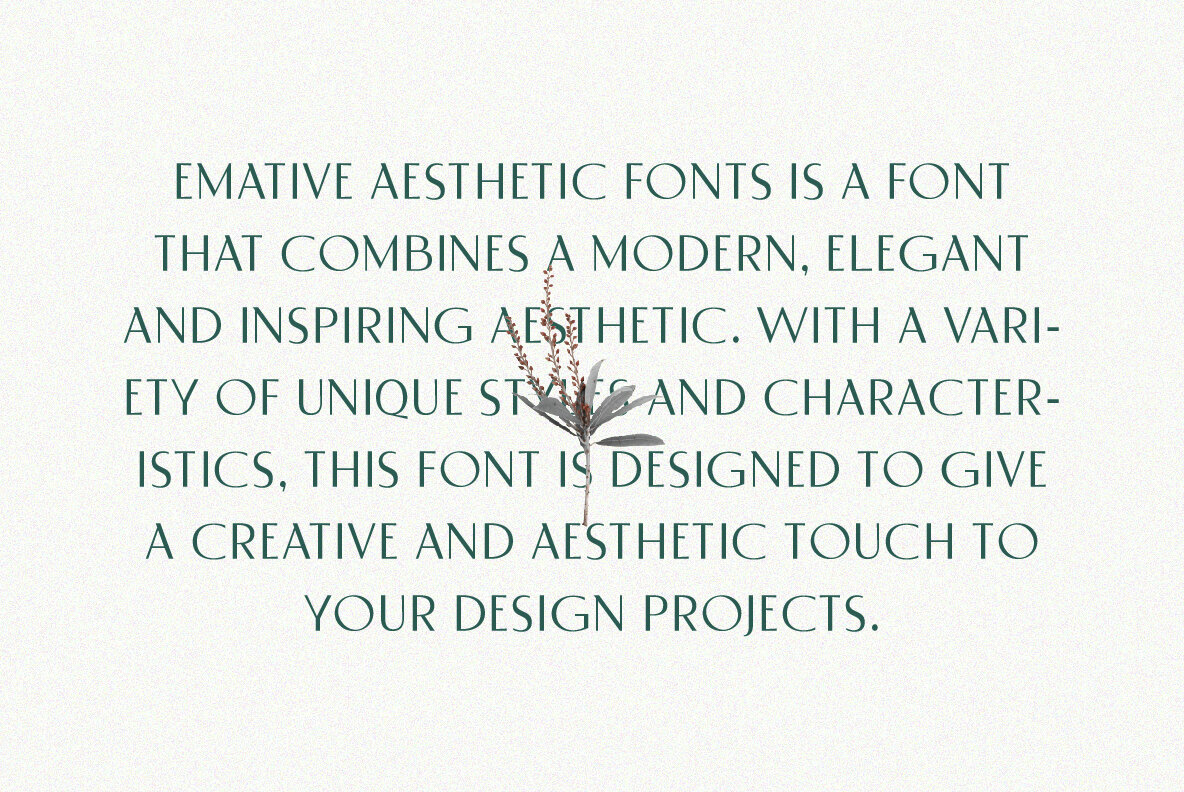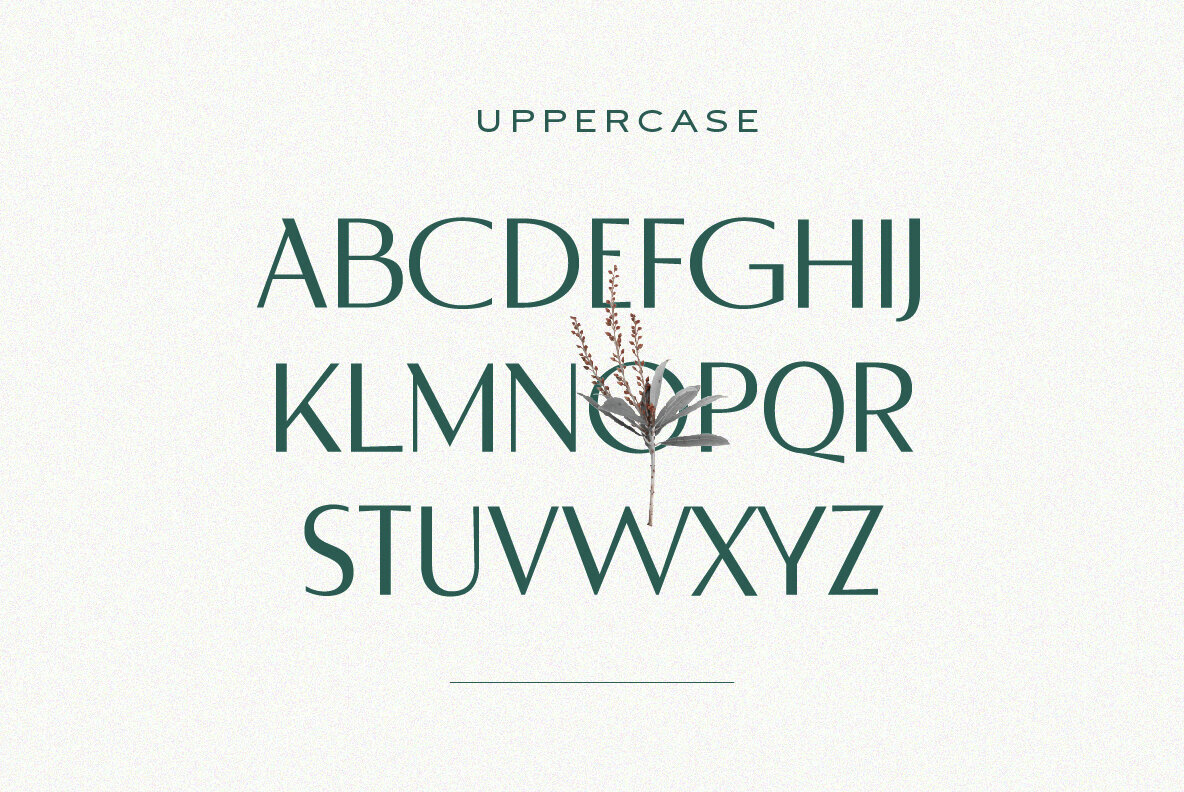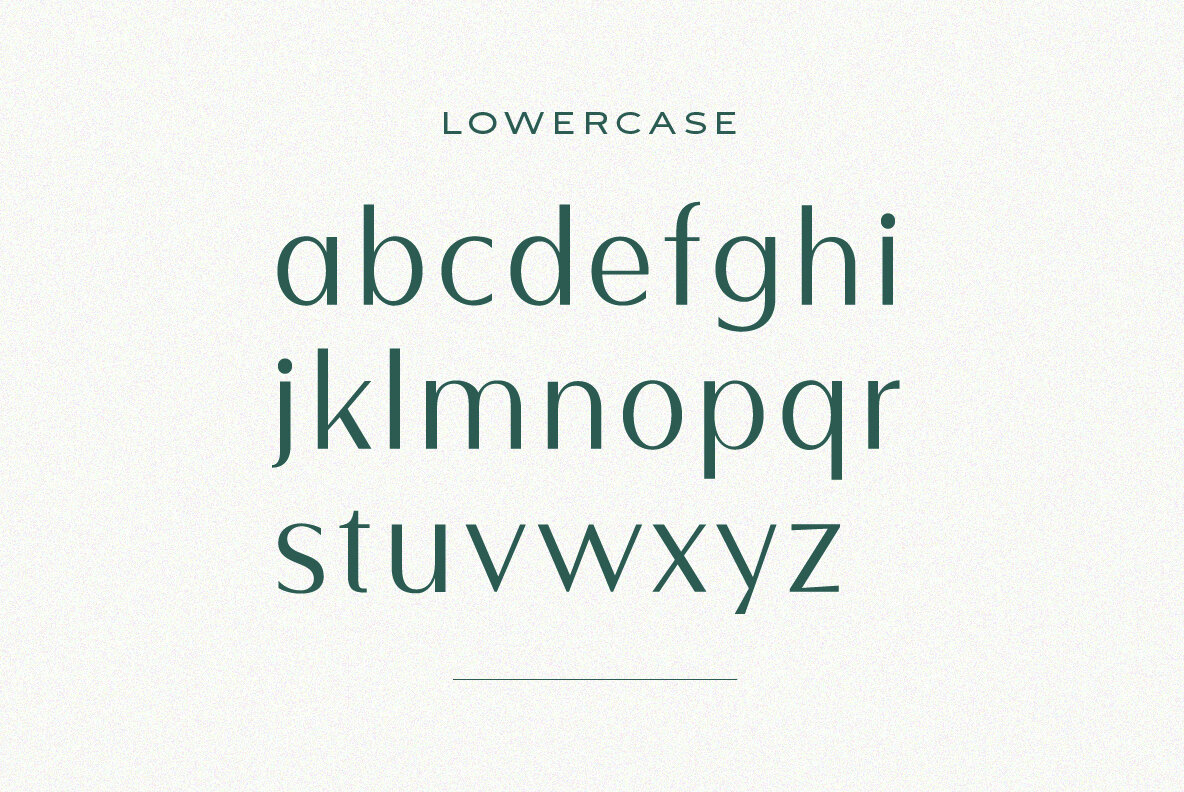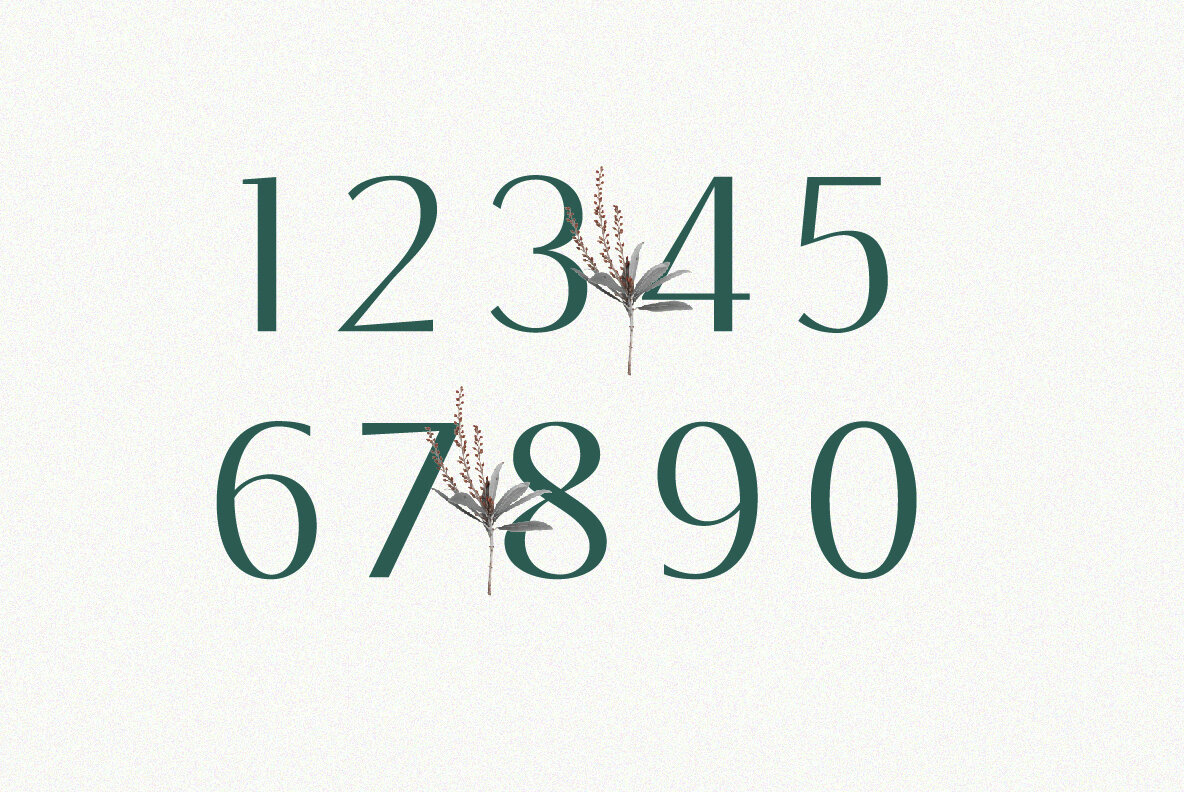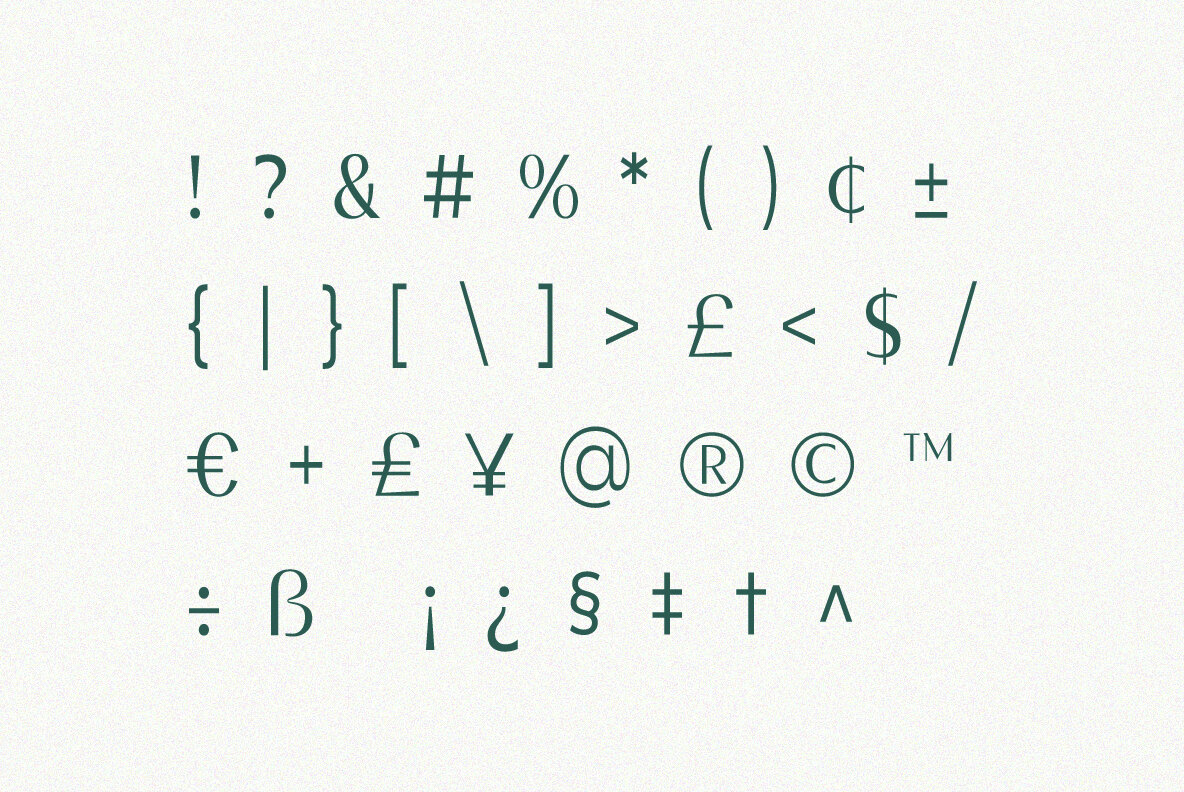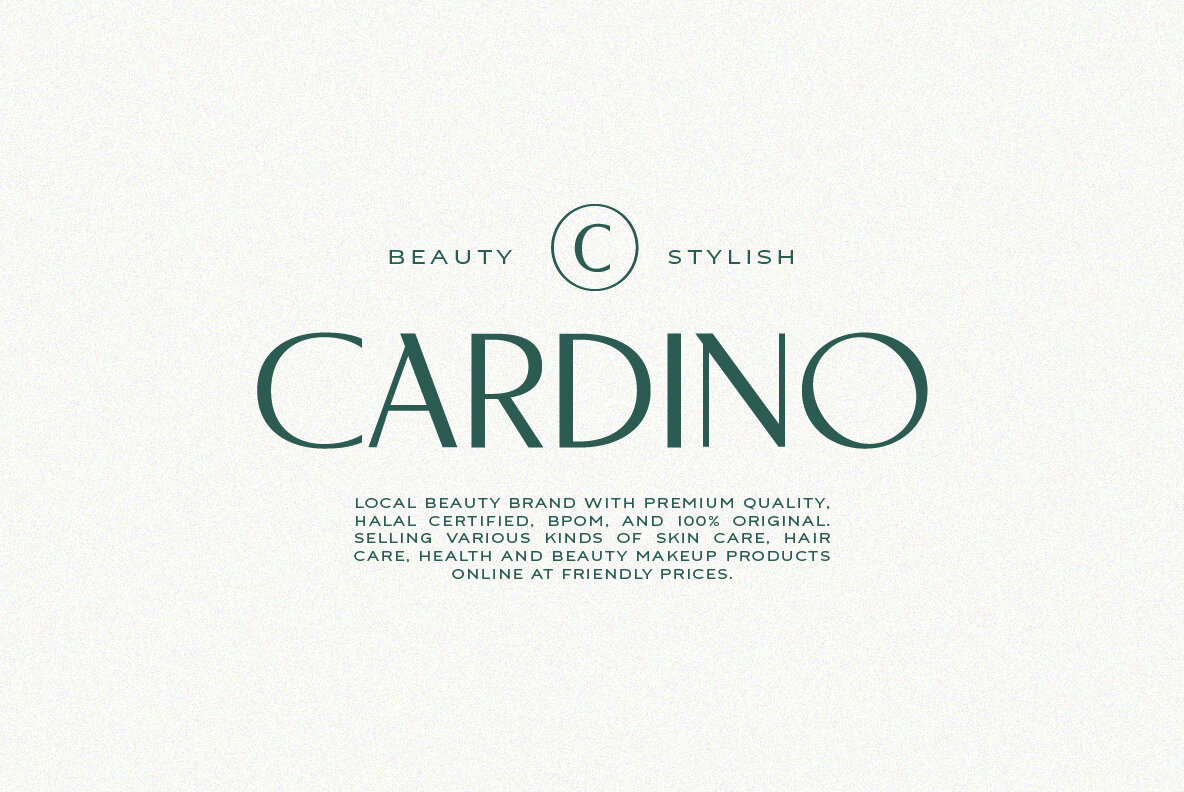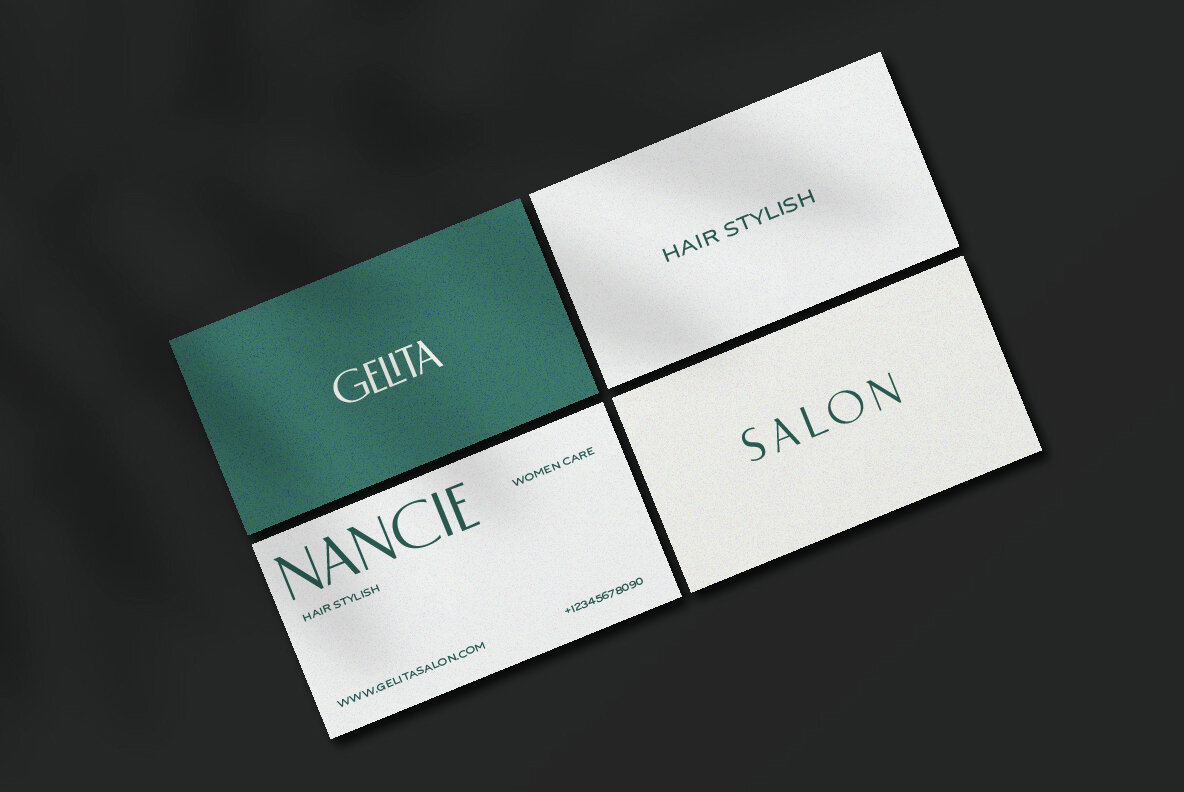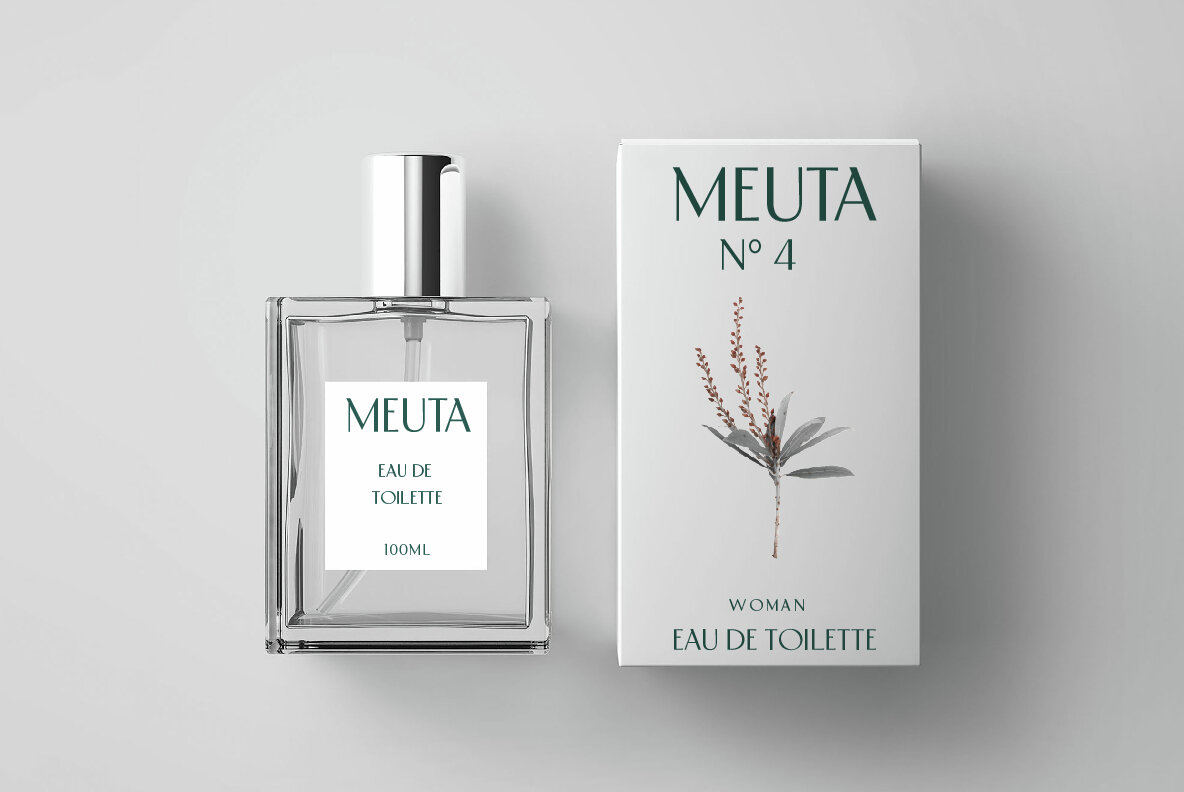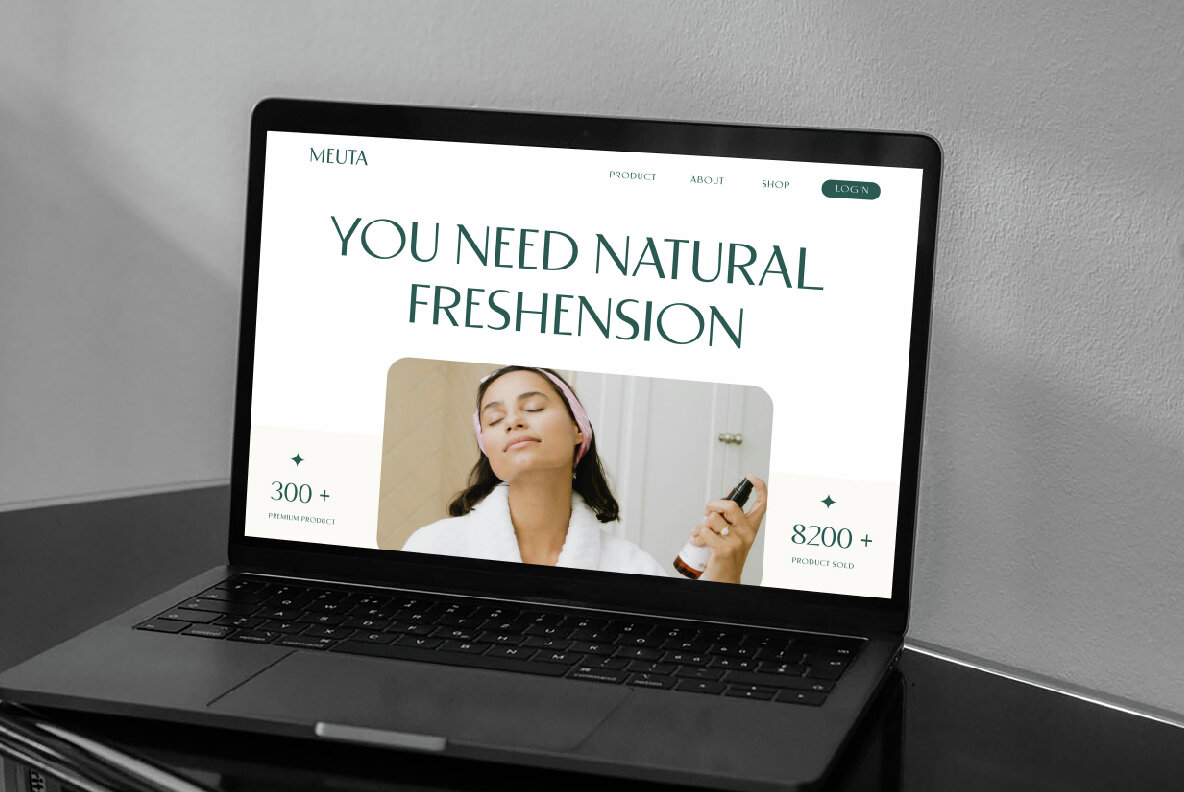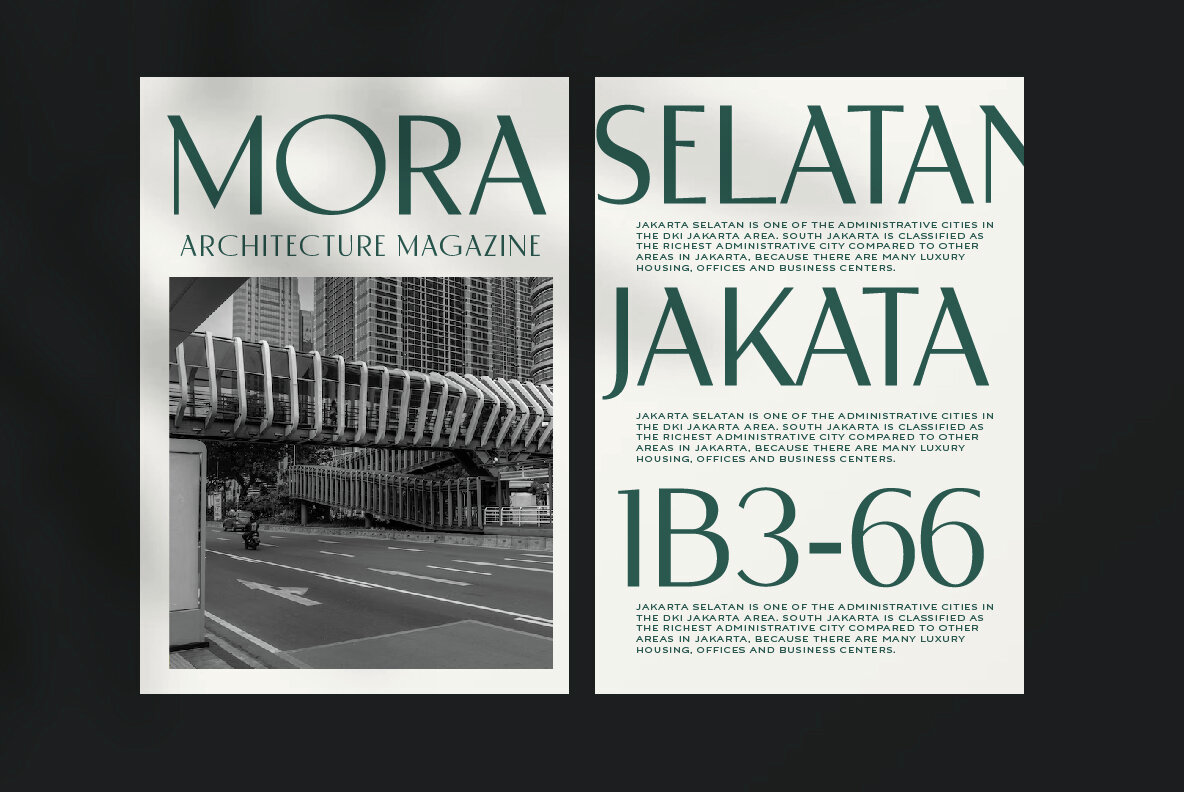
Derose Font
Derose Clean Modern Font presents a minimalist and sharp design, creating a clean and professional impression suitable for various applications.Derose Clean Modern Font by Yukita Creative